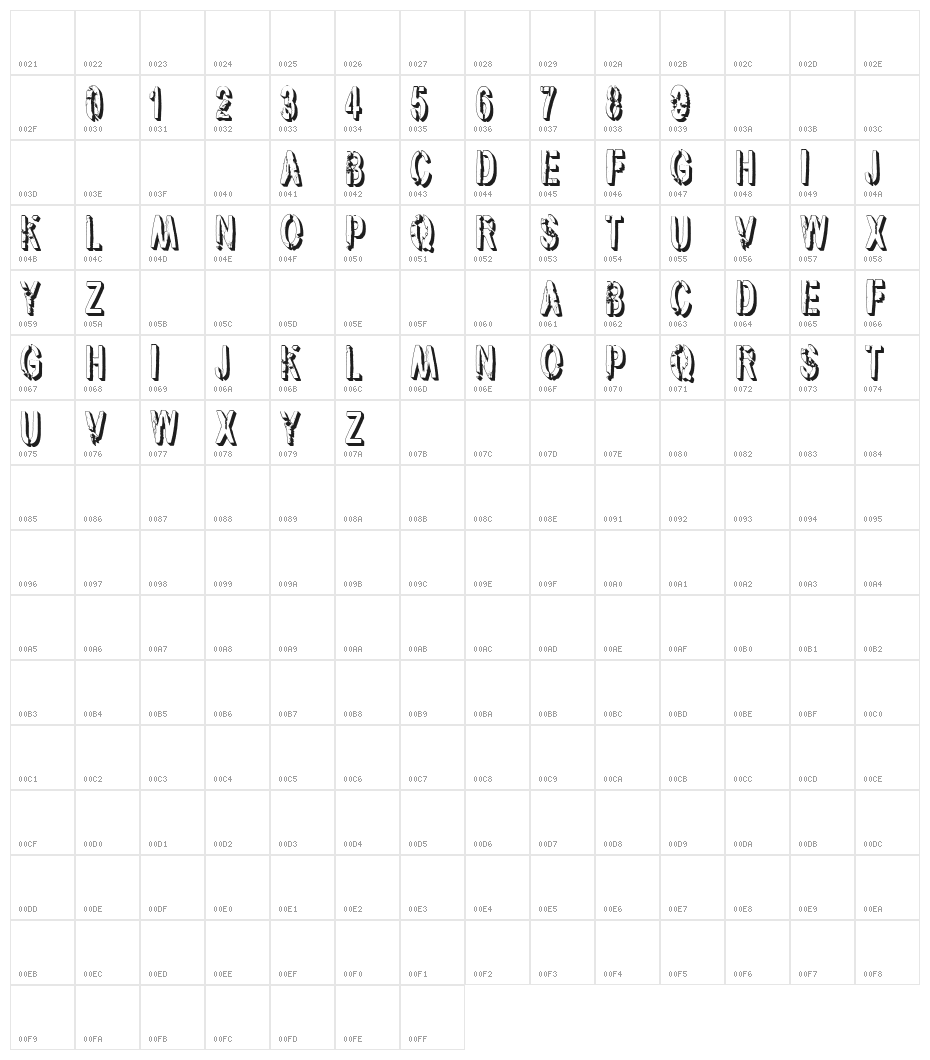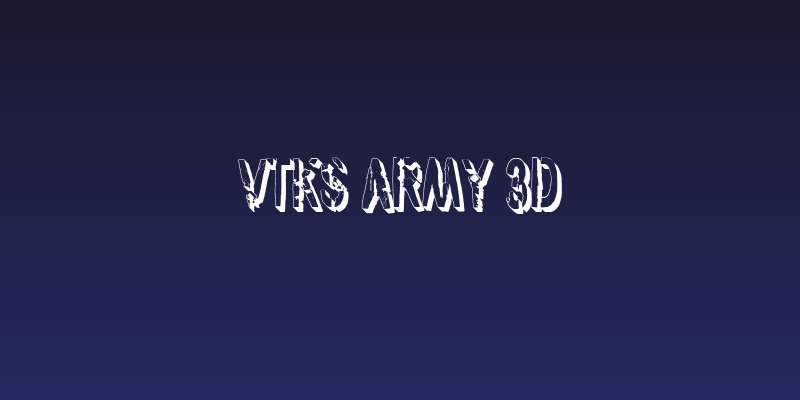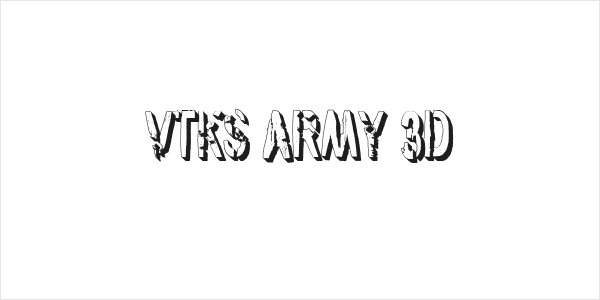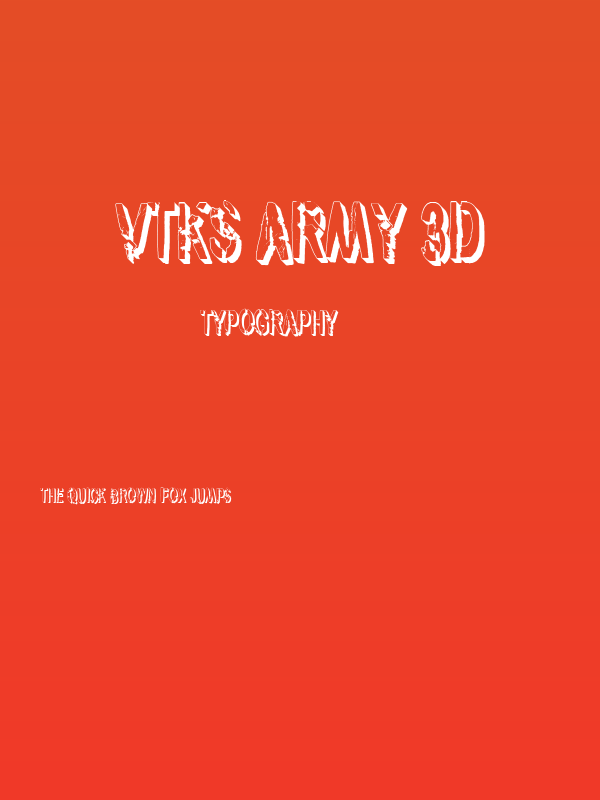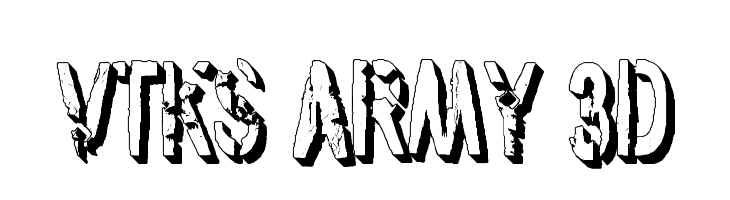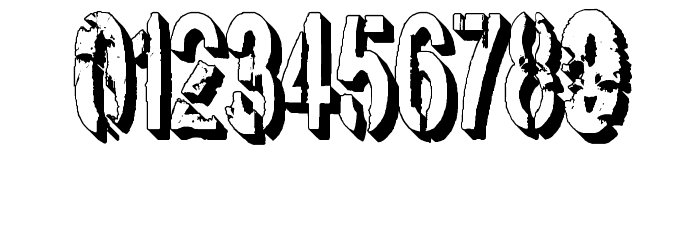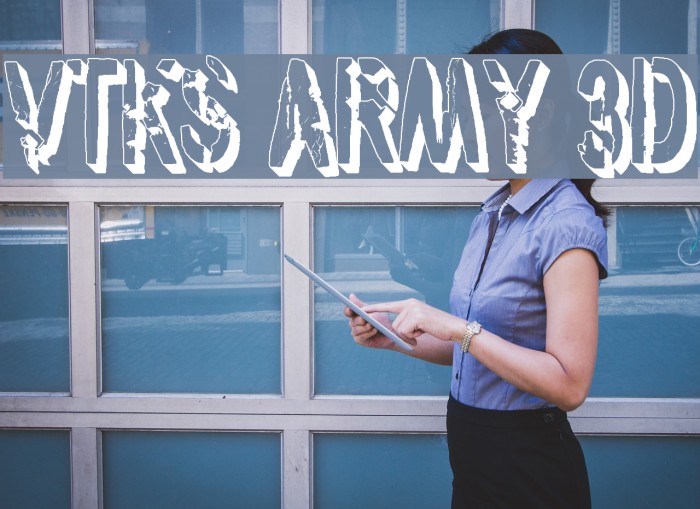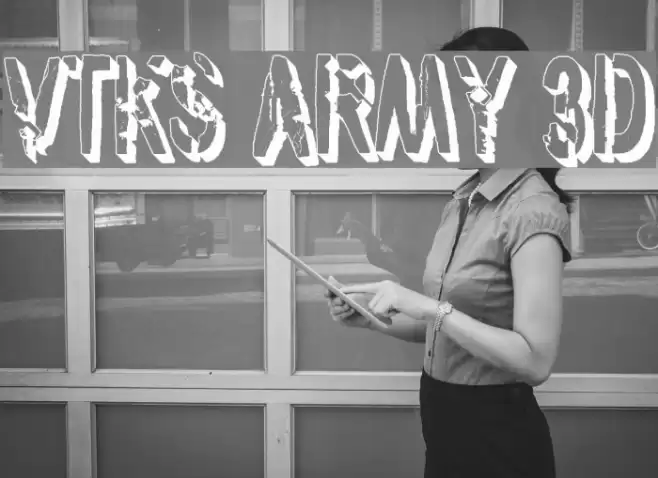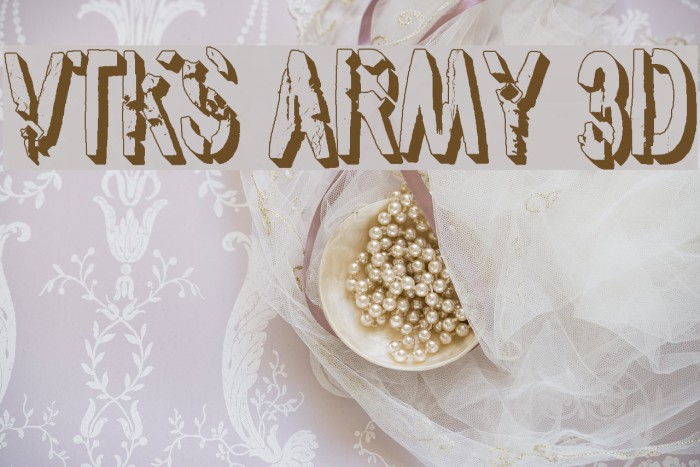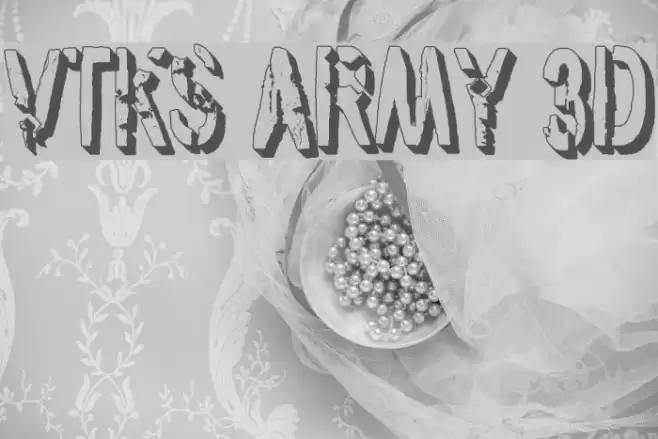
vtks army 3d Font
vtks army 3d Description
This font features a bold, distressed design with a three-dimensional effect that gives it a rugged, military-inspired appearance. The letters are uppercase and have a strong, impactful presence, making them ideal for attention-grabbing headlines. The distressed texture adds a sense of wear and tear, enhancing the font's gritty, tough aesthetic. The 3D effect is achieved through shadowing, which adds depth and dimension to each character. This style is particularly effective for projects that require a bold statement or a vintage, industrial feel. The font includes a full set of uppercase letters, numbers, and a selection of special characters, all maintaining the same distressed and dimensional style.
| Overall Style | Vintage |
| Proposed Projects | Ideal for military-themed designs, posters, video game graphics, and branding that requires a strong, impactful look. |